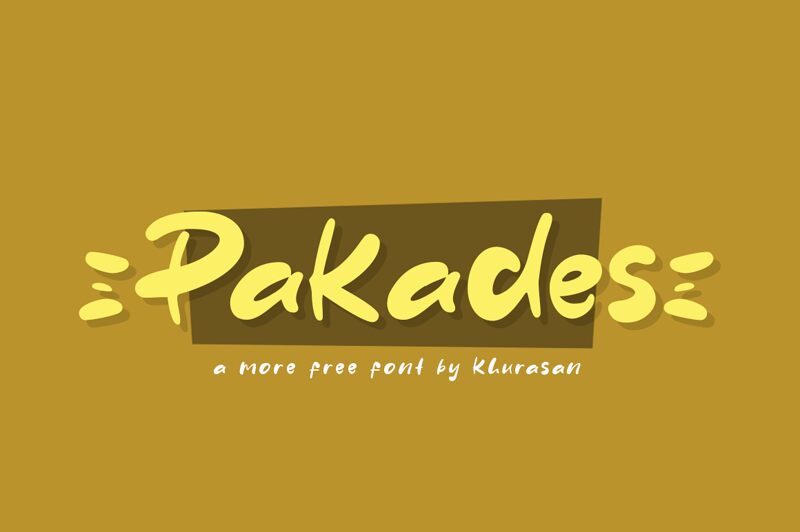
Pakades is a bold and playful display font designed by Khurasan. With its semi-expanded width, it is perfect for catching attention on any project. The cartoon style of the font adds a fun and whimsical touch to any design, making it suitable for children's books, playful branding, packaging design or digital content creation. Pakades' bold weight ensures that it stands out on any medium - be it print or digital. Let your imagination run wild with Pakades and create designs that are sure to leave a lasting impression!
Pakades